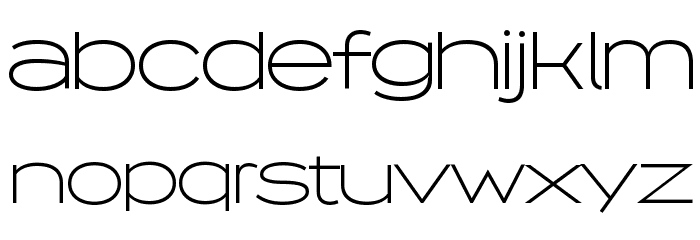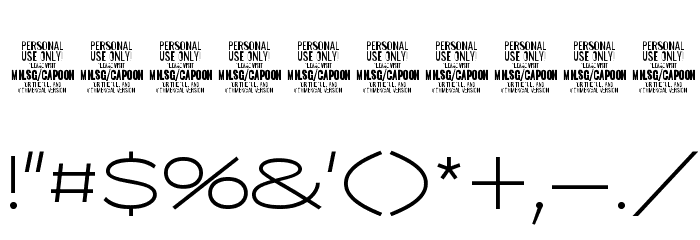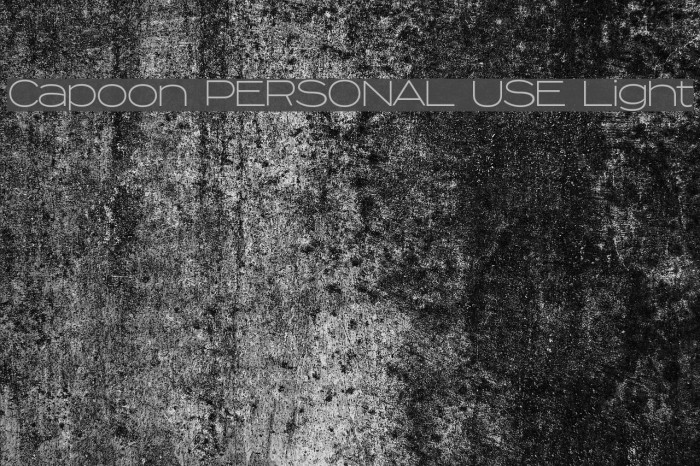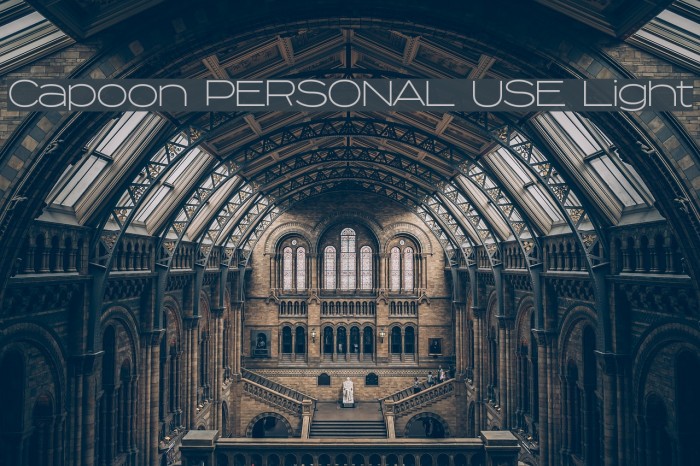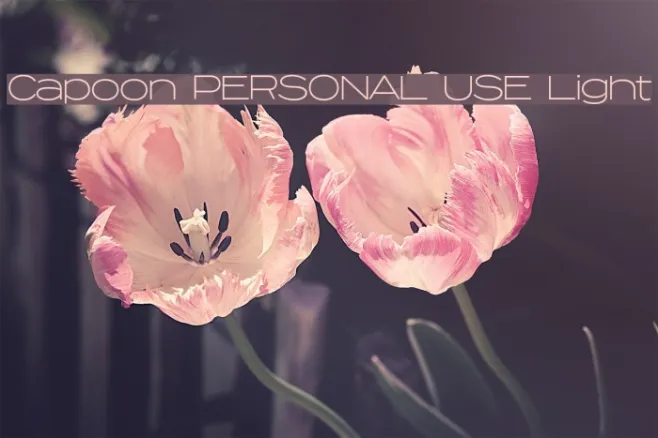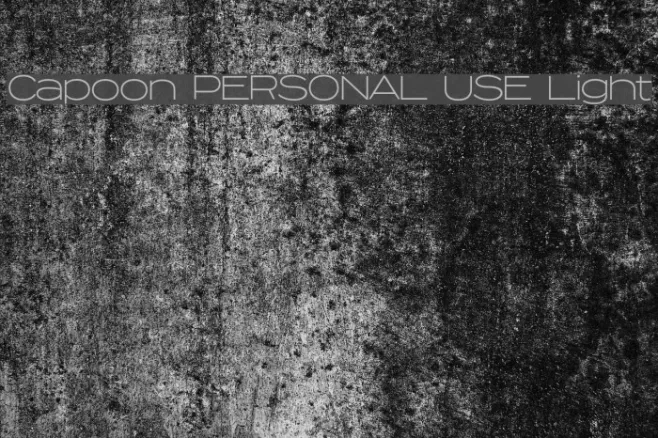
Capoon PERSONAL USE Light Font
This font features a sleek and modern design with clean lines and a geometric structure. The uppercase and lowercase letters maintain a consistent height, contributing to a uniform appearance. The characters are slightly elongated, giving them an elegant and sophisticated look. The font includes a full set of uppercase and lowercase letters, numbers, and a variety of special characters. Its minimalistic style makes it suitable for contemporary design projects, where clarity and simplicity are desired. The thin strokes and open counters enhance readability, making it ideal for both digital and print media.
A sleek, modern font with geometric lines and a minimalistic style.
- Proposed Projects: Ideal for branding, editorial design, websites, and modern advertising campaigns.